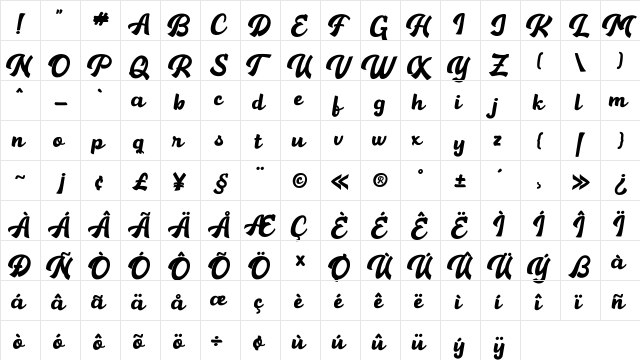
Hamelin Regular Font Preview
Hamelin Regular
Hamelin Regular Font Details
Design Context for Hamelin Typeface
Hamelin is a composed and adaptable typeface that performs quietly and consistently across a wide range of design contexts.